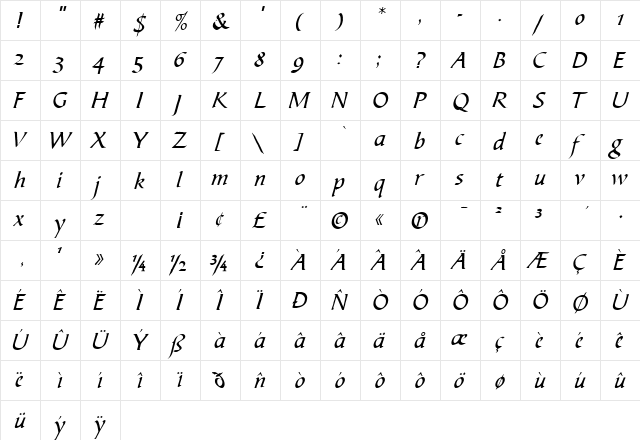
PT Diploma Normal
Design Context for PT Diploma Typeface
PT Diploma is a composed and adaptable typeface that performs quietly and consistently across a wide range of design contexts.